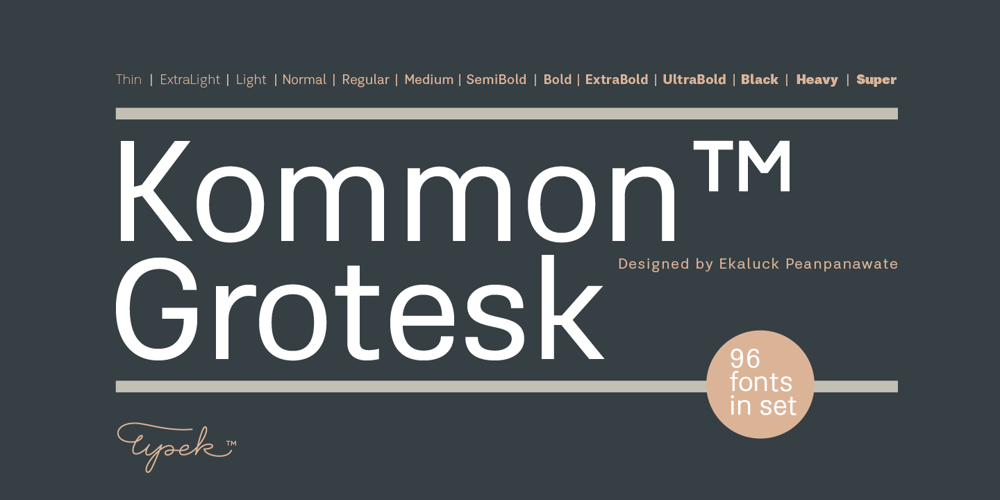
Kommon Grotesk
Kommon Grotesk font
Kommon Grotesk Font Family was designed by Ekaluck Peanpanawate, Tippawan Sumnavong and published by TypeK. Kommon Grotesk contains 192 styles and family package options. Introducing our foundry with the new Sans Serif typeface, Kommon™Grotesk, a super family with 96 styles. Different width from Extended to Compressed, variety of weights from Thin to Super, made Kommon™Grotesk suitable for multiple usage. The typeface was crafted till clean and simple. It has high legibility with modern and clear look to be use as text or display font. Kommon™Grotesk is effective displaying on many medias, both print and on screen.